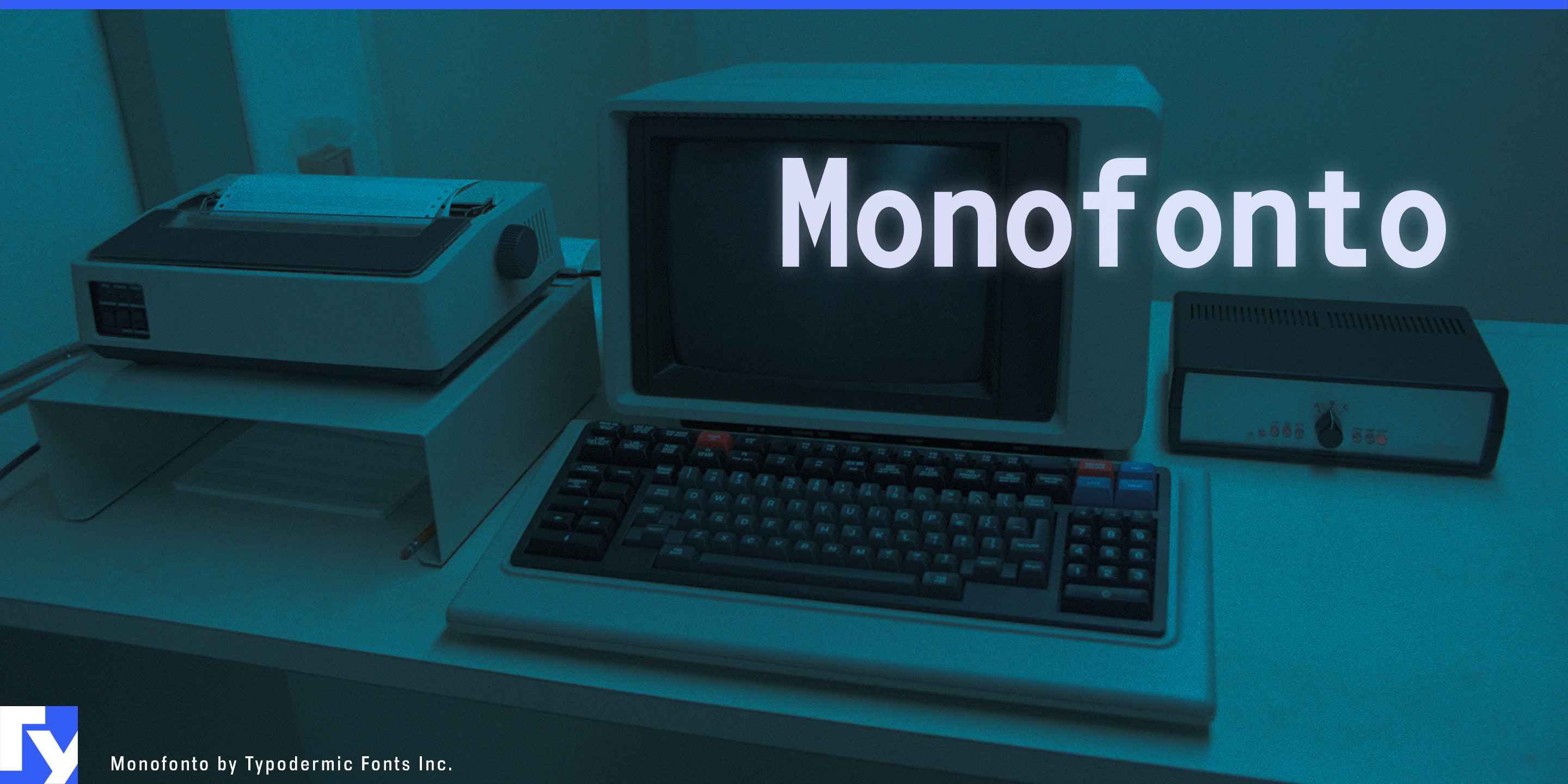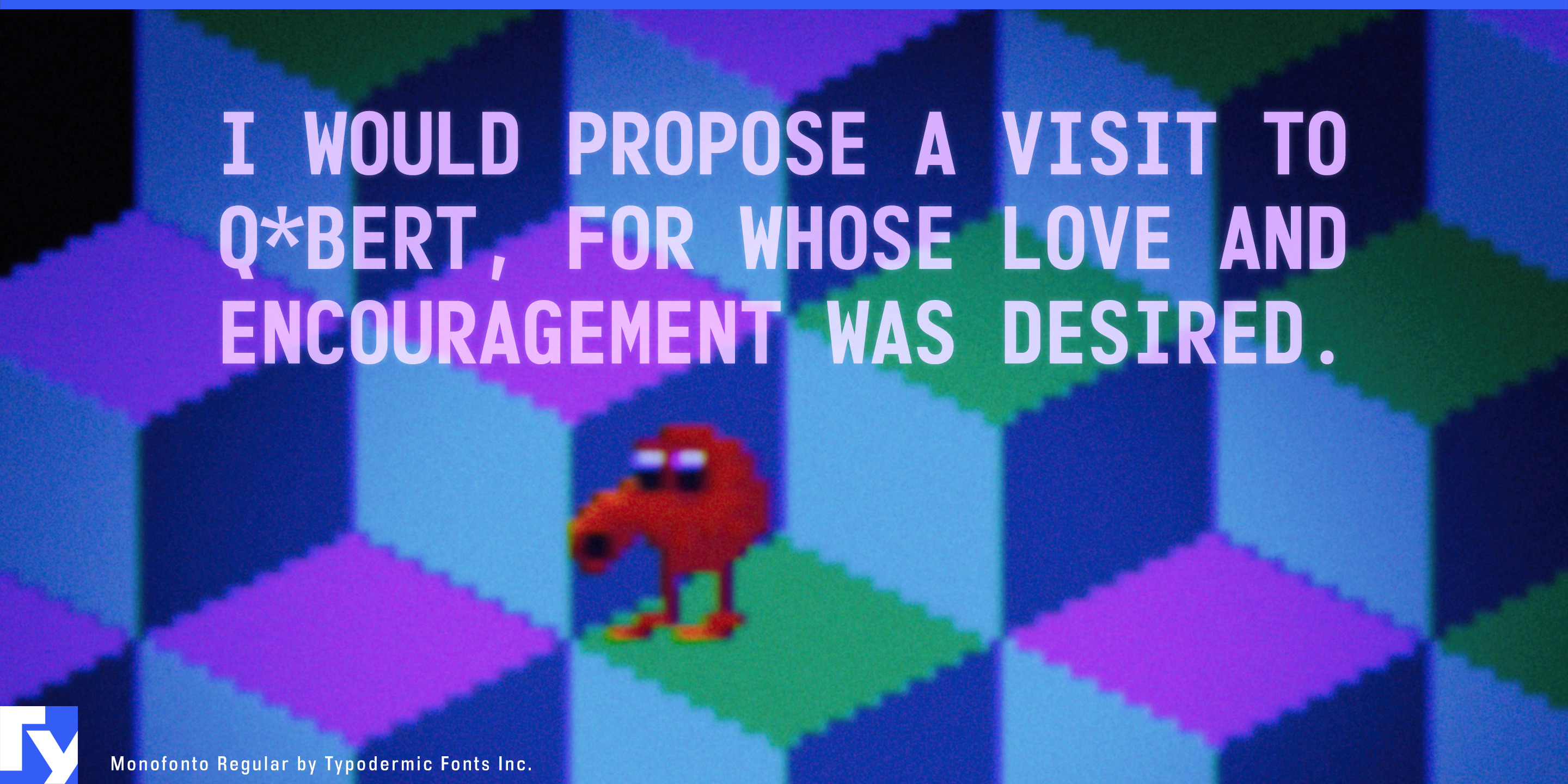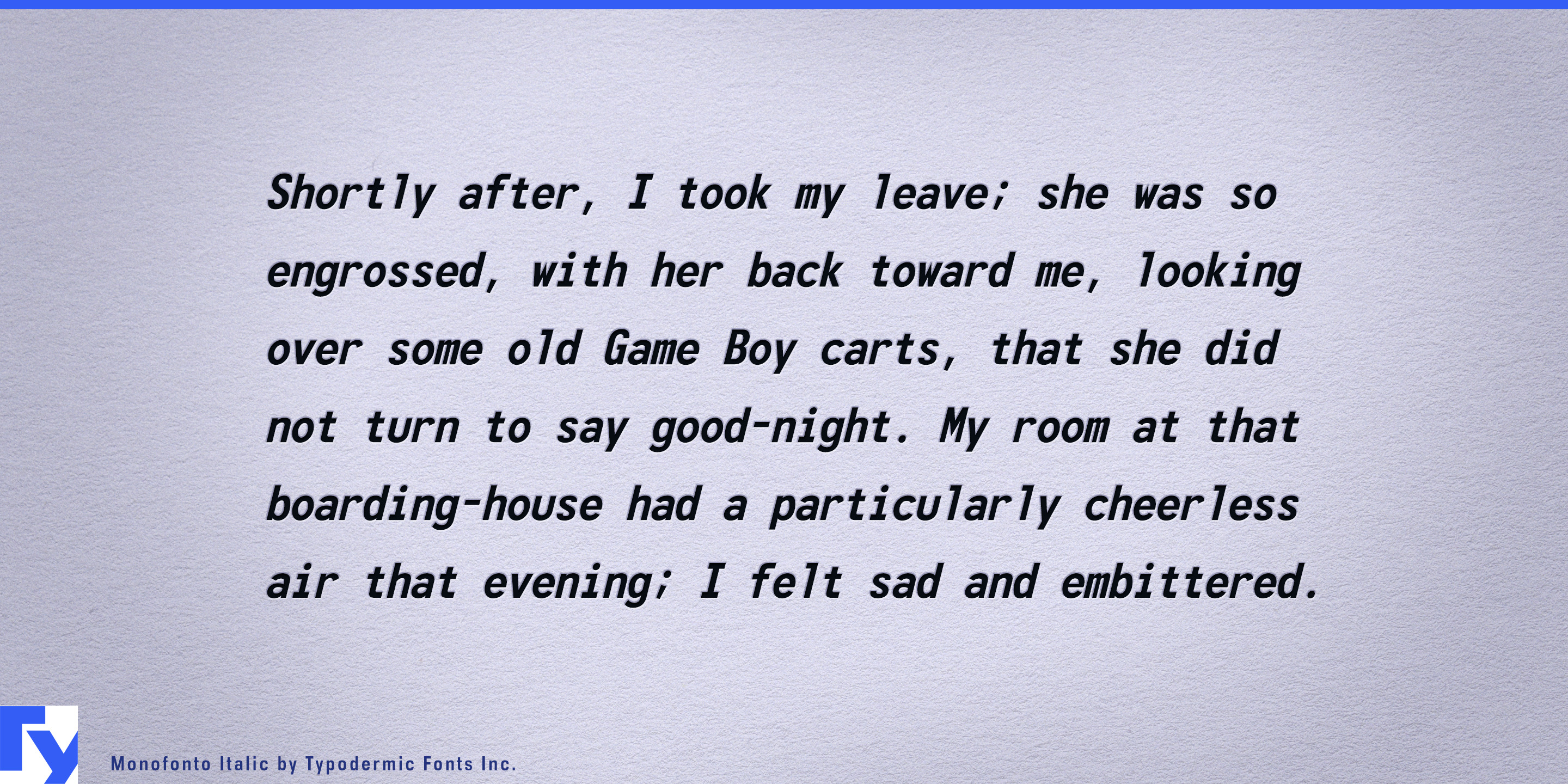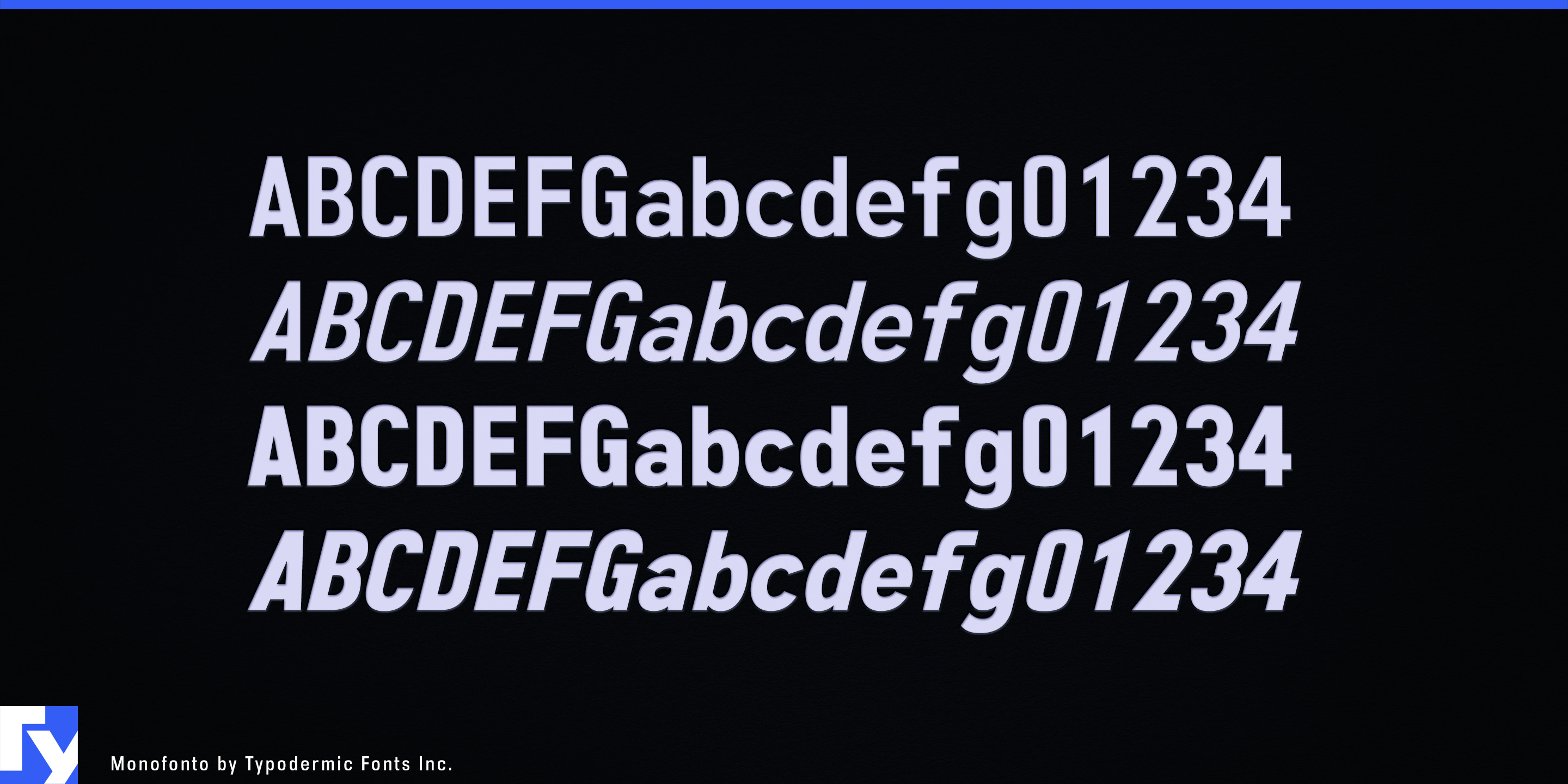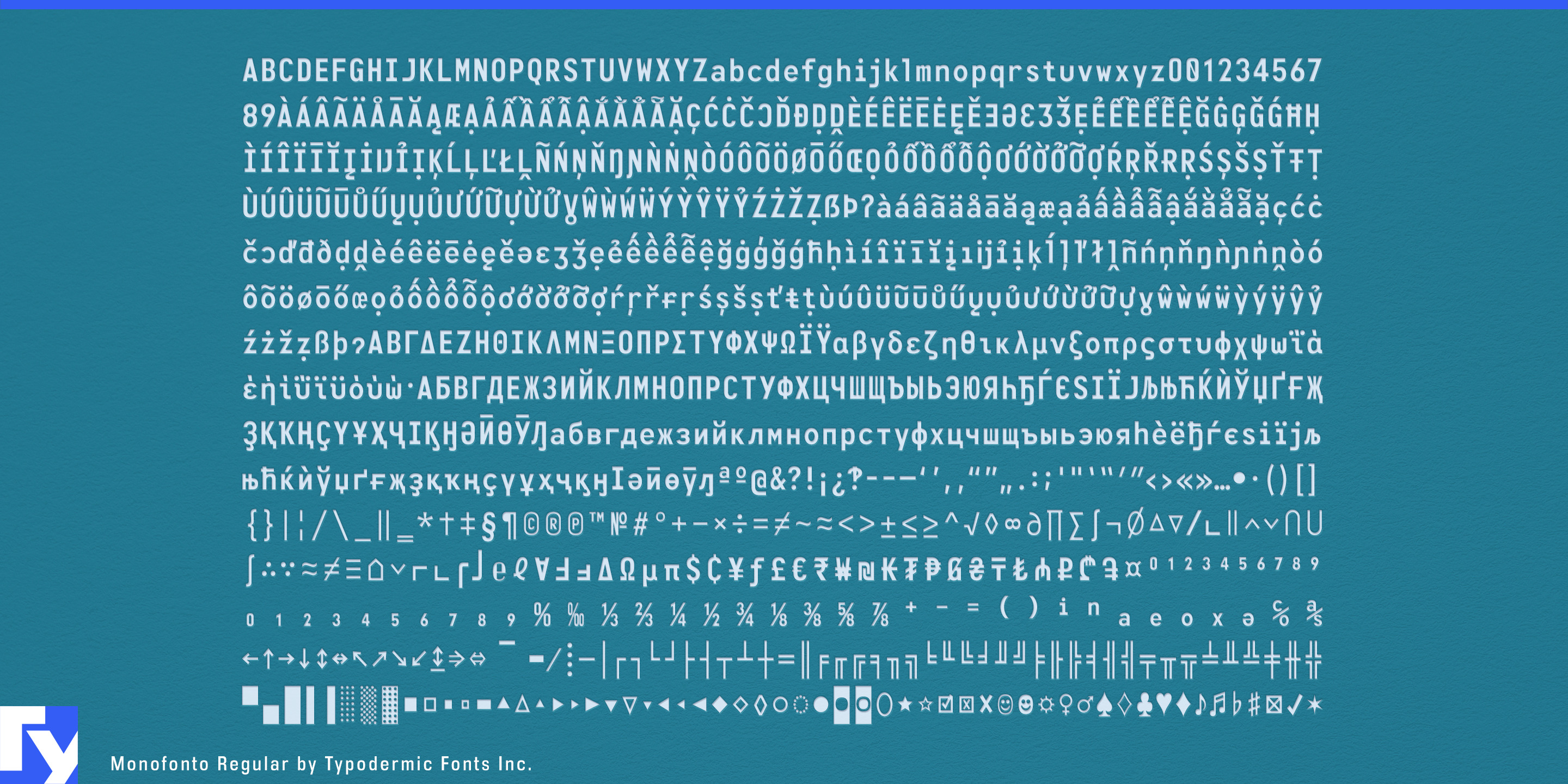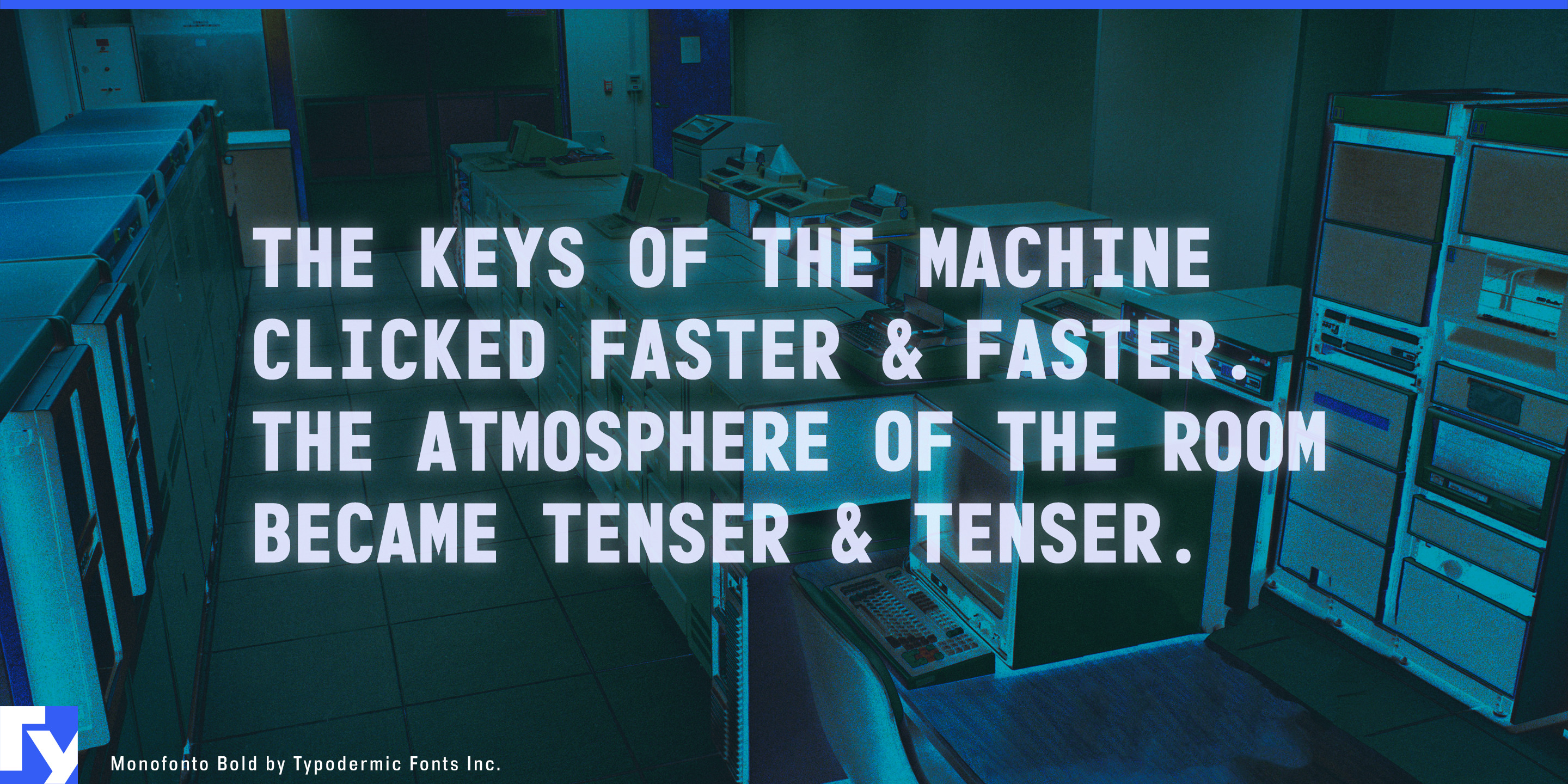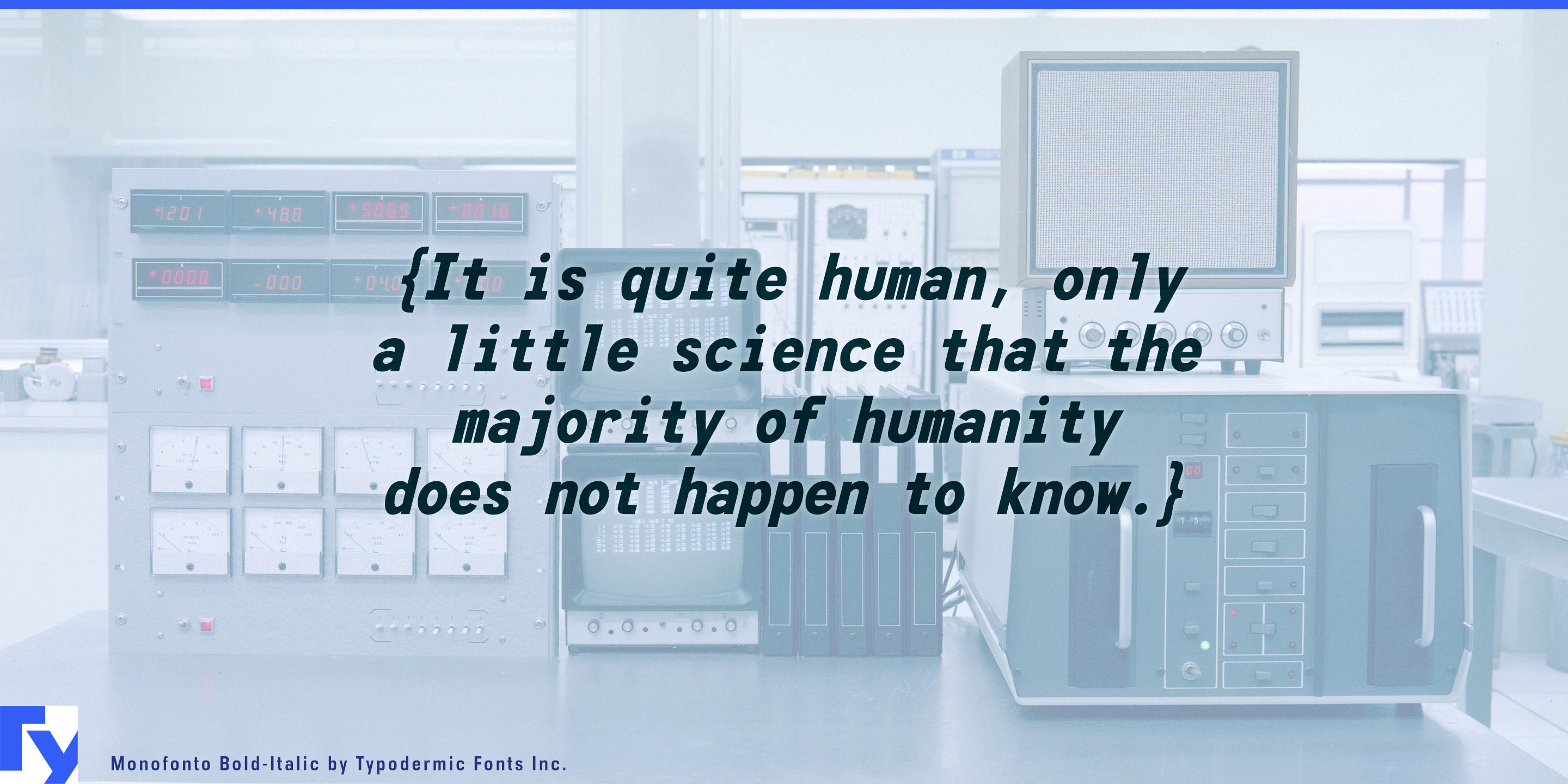
Monofonto
Technical data has a way of exposing the developer font. A product can have a carefully designed interface and polished branding, then fall back to anonymous monospace when it reaches logs, parameters, coordinates or IDs. Monofonto is for the point where that information stops being backstage and becomes part of what the customer actually sees.
Monofonto is a genuine fixed-width family with Regular, Italic, Bold and Bold Italic. Its history is rooted in screen typography, and an earlier version became widely recognized through its use in the Fallout game series. The current design has been substantially refined since then, while retaining the fixed grid that makes technical information easy to organize.
Systems-heavy games are a natural fit. Survival games, immersive simulations, science-fiction RPGs, tactical strategy titles and management games expose inventories, equipment statistics, coordinates, crafting requirements, mission logs and terminal-style information as part of play. Monofonto can carry HUD status panels, item tables, equipment comparison screens and fictional terminals without making them look like temporary development interfaces.
Synthesizers, grooveboxes, samplers, sequencers, effects processors and audio plug-ins present much the same problem. Preset numbers, BPM values, MIDI channels, parameter readouts and patch names all benefit from fixed-width structure. Monofonto can give those elements a recognizable technical voice across hardware, software and promotional interface graphics.
Cloud observability platforms, API tools, deployment systems, database consoles and AI-development environments expose logs, traces, request IDs, timestamps, latency values and structured output to professional users. Monofonto can act as the fixed-width companion to a proportional brand face, separating machine-readable information from navigation and prose while keeping both parts of the interface deliberately designed.
Incident-response platforms, SOC dashboards, cyber ranges and forensic tools bring the same need to hashes, IP addresses, alert identifiers and event timelines. Robotics commissioning tools, machine-vision dashboards, electronics test equipment and vehicle diagnostics extend it to measurements, device IDs and status values. Video and broadcast systems add timecode, frame counts, clip IDs and cue names.
The four coordinated styles provide hierarchy and emphasis without leaving the fixed grid. Monofonto is for products where numbers, logs, parameters and identifiers are part of the experience itself: monospacing solves the alignment problem, while the typeface gives that data a visual identity of its own.